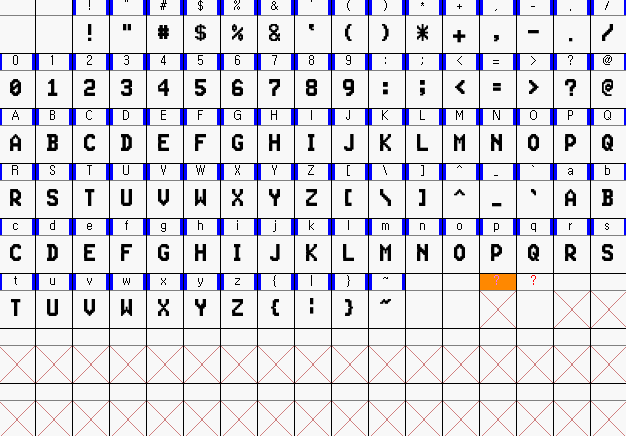
zBar-B
zBar-* series fonts are based on Zebra barcode label printer. The font format is TTF, which is convenient for users to print various labels. Note that the size of the font should be set to 8.5 or a multiple of 8.5 pt.